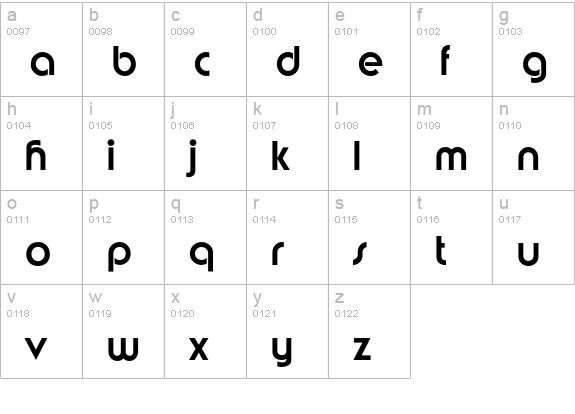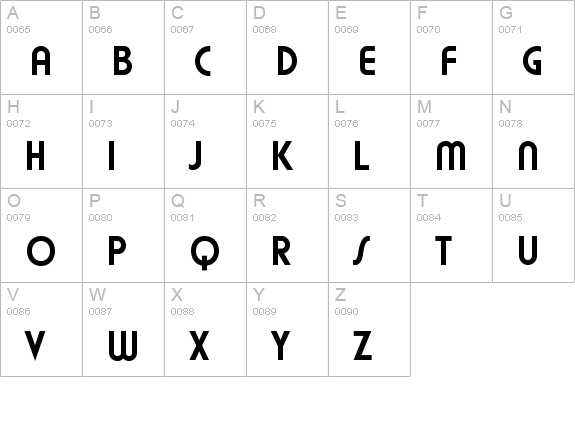
Graphics Font Details
Introducing Graphics font, a modern and stylish typeface designed to enhance your creative projects. With its sleek lines and contemporary feel, Graphics font is perfect for adding a touch of sophistication to any design. Whether you're working on a logo, branding materials, or website graphics, this versatile font will make your text stand out. The best part? Graphics font is completely free to use! You can download it today at FontsMarket.com and start incorporating it into your projects right away. Don't miss out on this amazing opportunity to elevate your designs with the sleek and professional look of Graphics font. Download it now and let your creativity shine!